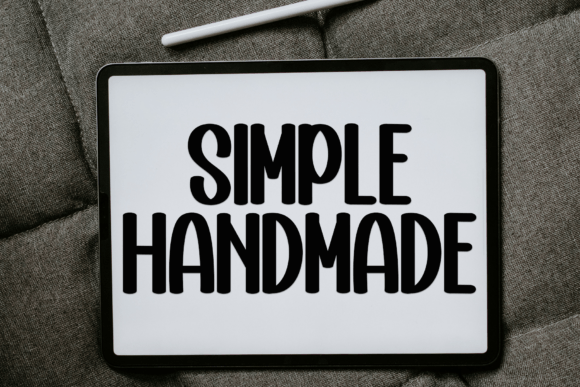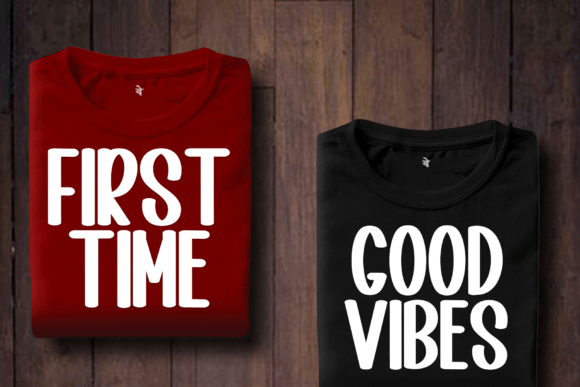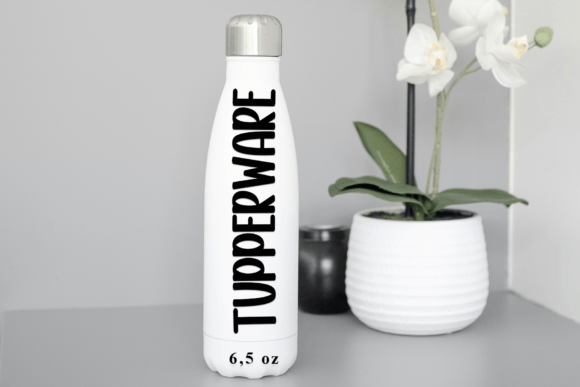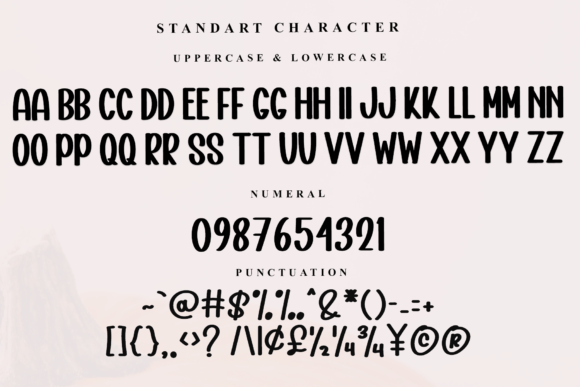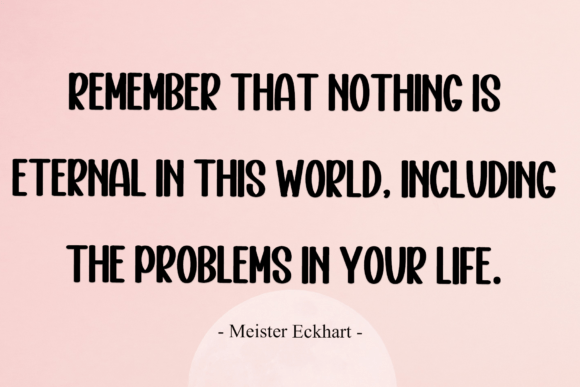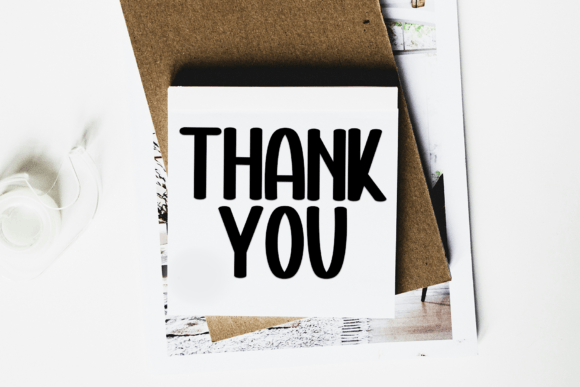
Introduction to Planner Camping Font
Do you ever find yourself daydreaming about escaping to the great outdoors, surrounded by nature and the thrill of adventure? For many of us, the idea of planner camping is a fun and creative way to bring that sense of excitement into our daily lives.
One of the best ways to capture the essence of planner camping is with the right design resource. That’s where the Planner Camping Font comes in – a fun, handwritten display font that adds a bold, adventurous style to any project.
Perfect for designers looking to add a playful touch to their work, this font is a valuable addition to any design arsenal, offering a high-quality, free download that’s perfect for creating a wide range of creative projects, from camping-themed posters to travel journals.
Key Features of Planner Camping Font
- High-quality design resource ideal for creative projects, such as camping and outdoor-themed planners.
- Includes a range of characters, including uppercase and lowercase letters, numbers, and special characters, making it a versatile design resource.
- Unique characteristics, such as hand-drawn elements and creative typography, make it stand out from other fonts.
- Suitable for use in digital and print projects, including planners, journals, and other creative materials.
Honest Review: Planner Camping Font
I recently stumbled upon the Planner Camping Font, and I’m excited to share my honest review with you. As a designer, I’m always on the lookout for unique and high-quality design resources to elevate my creative projects.
- ✨ High-quality design that’s perfect for outdoor-themed projects
- ⚠️ Limited font styles available, which may not be suitable for all design projects
- ⚠️ May not be as versatile as other fonts on the market
Overall, I’m impressed with the Planner Camping Font. While it may have some limitations, it’s a great addition to any designer’s toolkit. It’s perfect for creative projects that require a fun and adventurous vibe.
Planner Camping Font
The Planner Camping Font is a versatile design resource that offers a high-quality, free download for your creative projects. With a transparent background, this font is perfect for planners, journals, and other creative endeavors.
The Planner Camping Font is perfect for planners, journals, travel logs, and other creative projects. It’s also great for adding a touch of whimsy to presentations, documents, and social media posts.